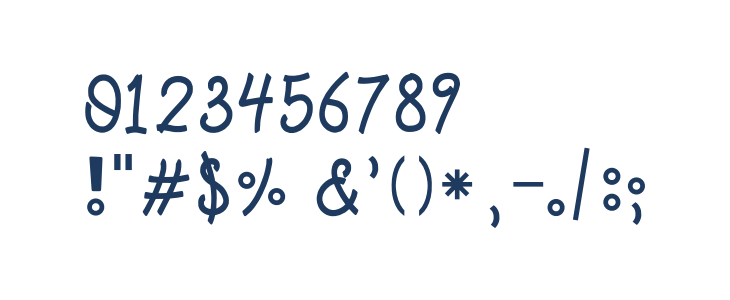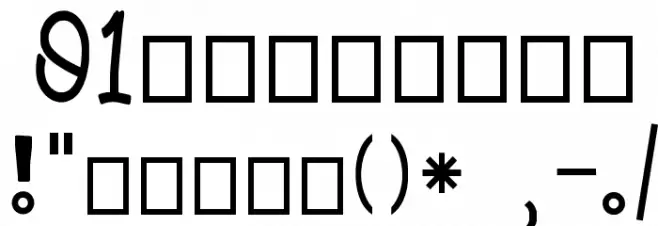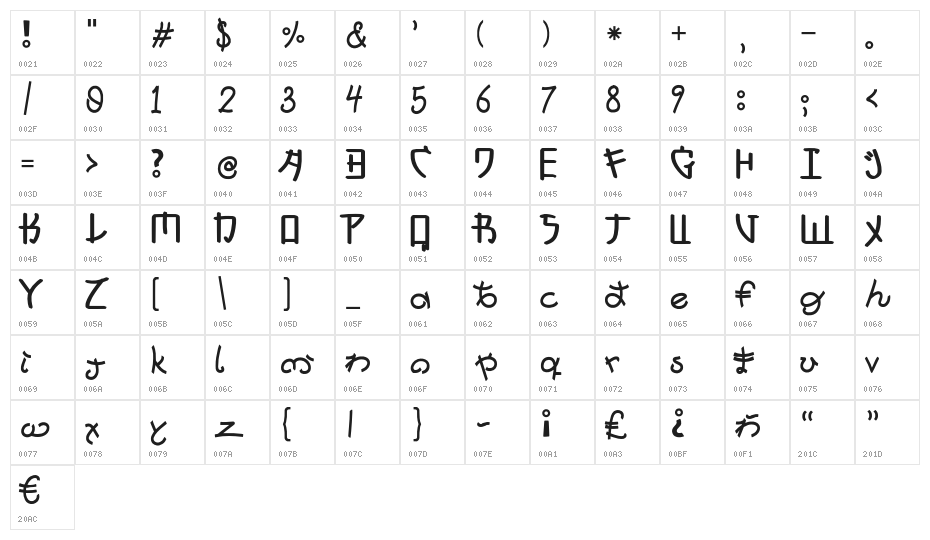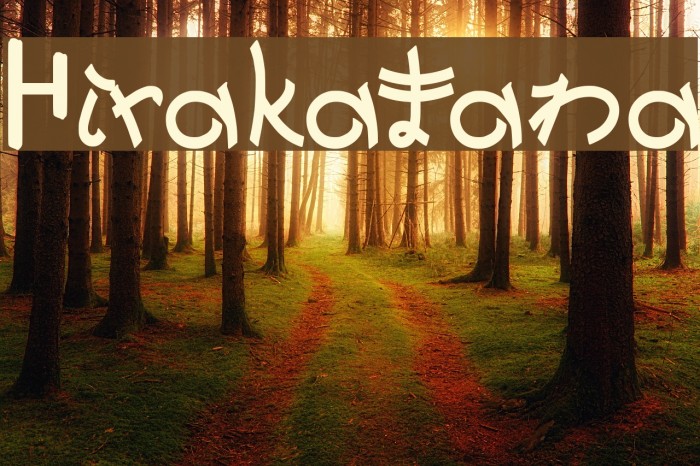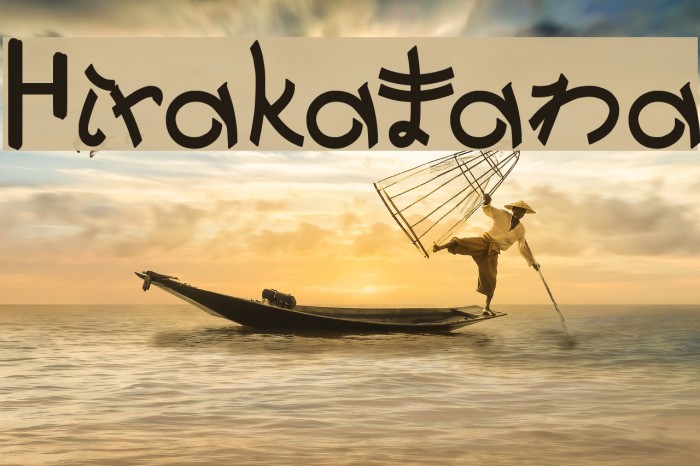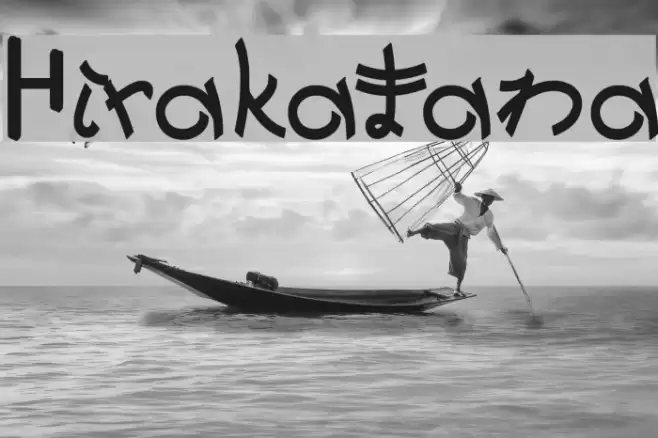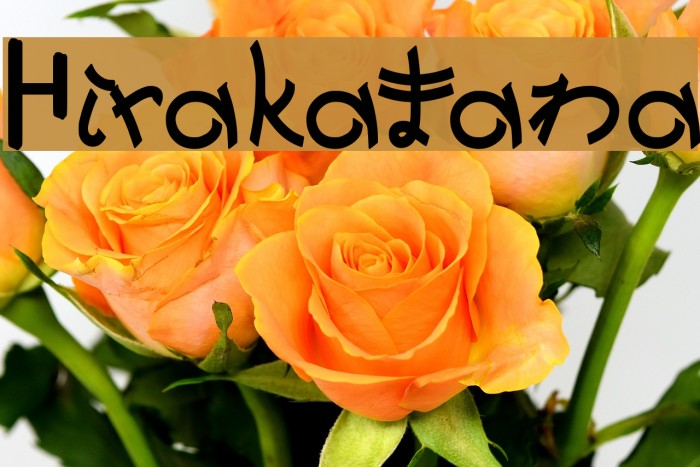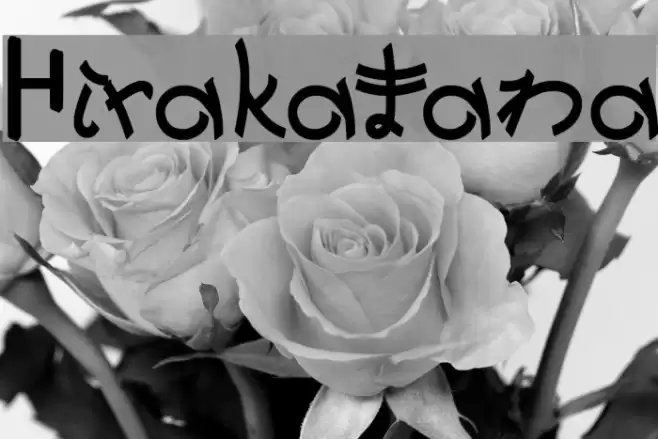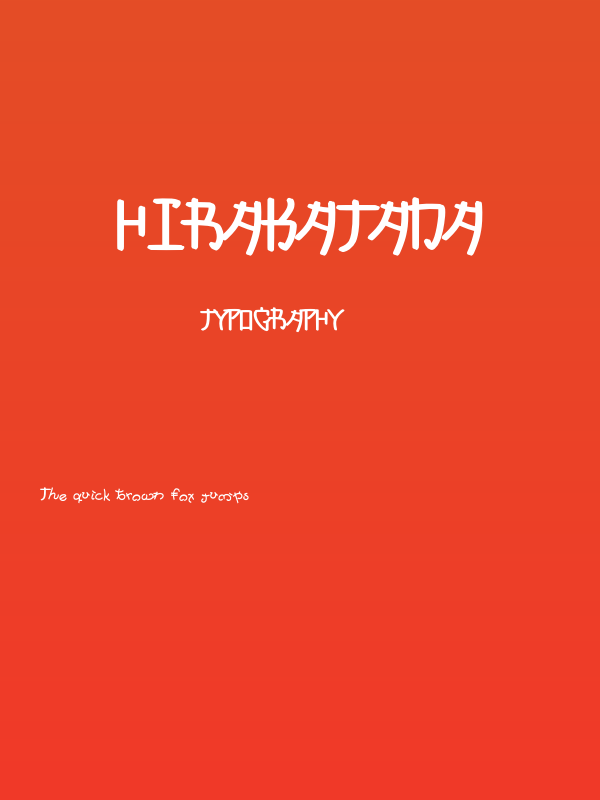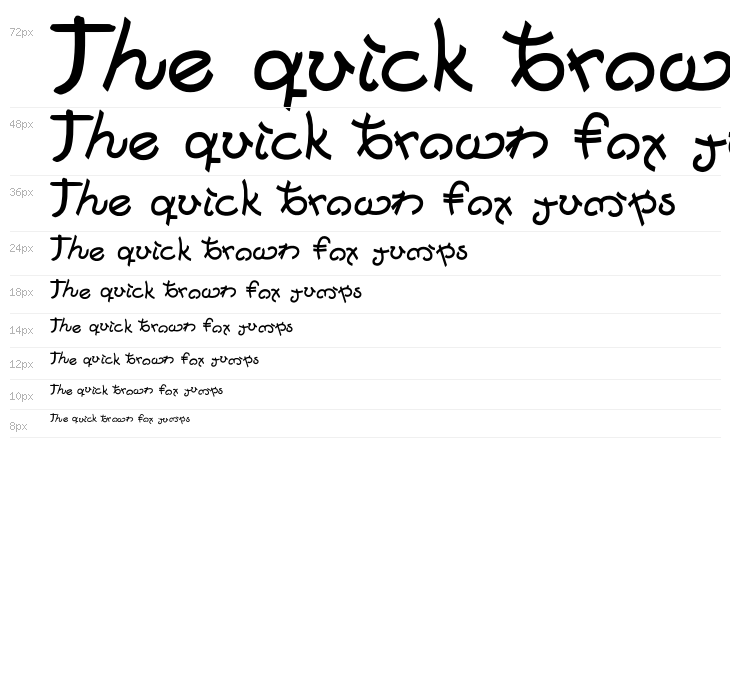
Hirakatana Font
Hirakatana Description
This font features a unique blend of geometric and calligraphic elements, creating a playful yet structured appearance. The uppercase letters are bold and angular, with a distinctively modern flair, while the lowercase letters incorporate smooth, flowing curves that add a touch of elegance. The numerals are bold and consistent with the overall style, ensuring readability. Special characters maintain the font's playful aesthetic, making it versatile for various design projects. The font's overall style is both contemporary and artistic, suitable for creative and eye-catching designs.
HIRAKATANA UPPERCASE
HIRAKATANA LOWERCASE
HIRAKATANA OTHER CHARS